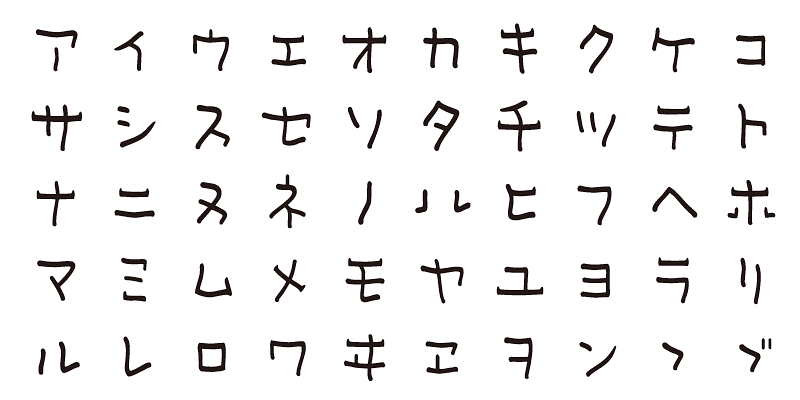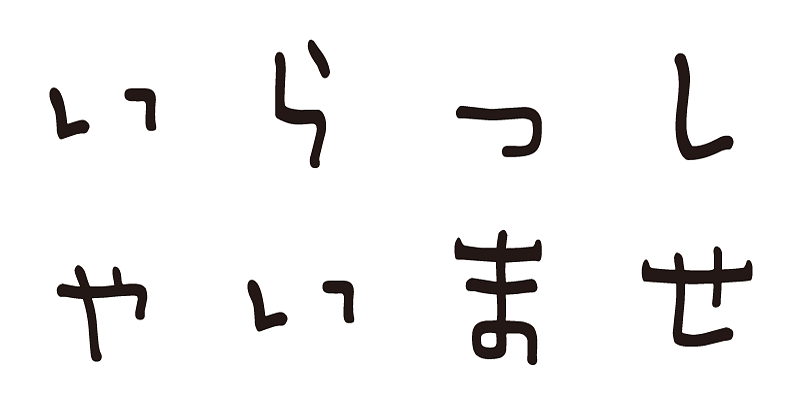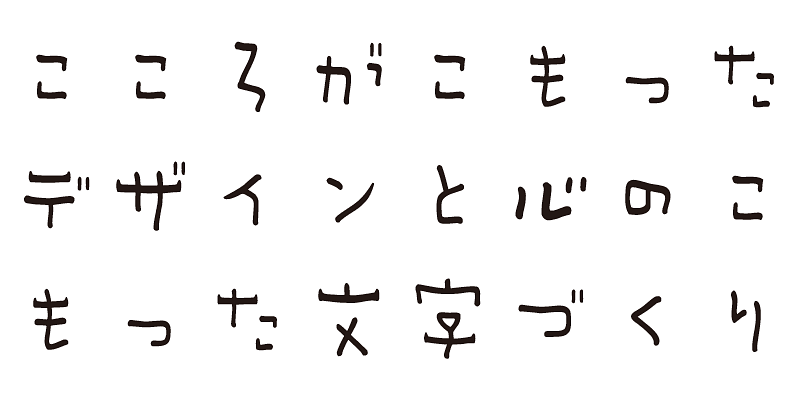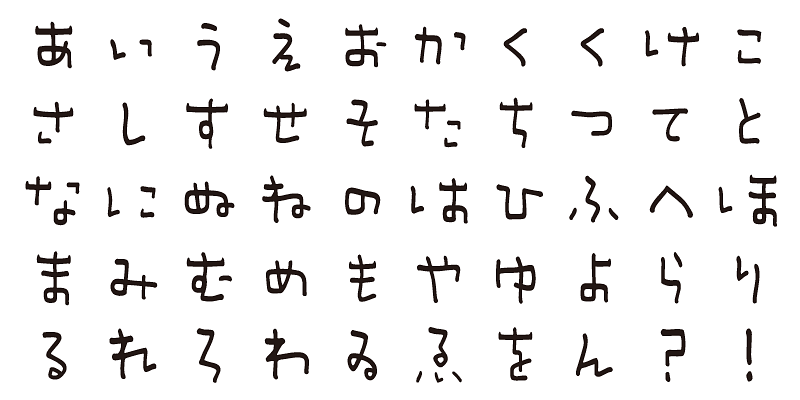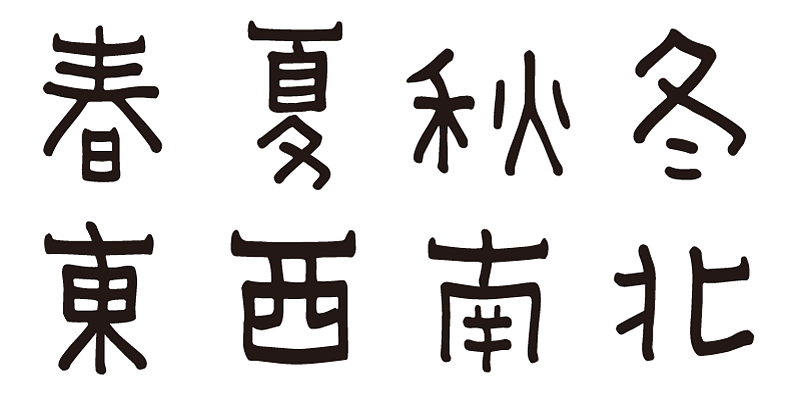
This typeface has freely shaped strokes and retains the flavor of handwritten characters.
Each font in this typeface family includes 1,000 kanji characters, as well as hiragana, katakana, alphanumeric characters, and punctuation marks.
We design typefaces with the hope that they will add underlying meaning to words expressed. We wish the user to feel good and experience comfort and joy when using these typefaces.